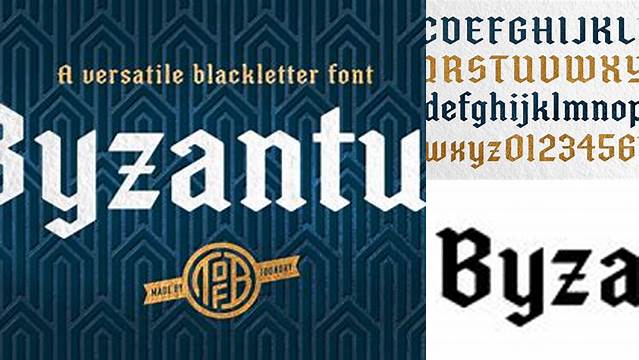
Byzantus Font has captured the hearts of designers and creatives worldwide with its unique blend of classic elegance and modern flair. This comprehensive guide will take you on a journey through everything you need to know about the Byzantus Font, from where to find it for free, understanding its licensing, to practical tips for incorporating it into your projects. Get ready, guys, because we're diving deep into the world of Byzantus Font!
The Allure of the Byzantus Font: Why It's a Designer's Darling
So, what's the big deal about the Byzantus Font? Well, it's more than just a collection of letters and symbols; it's a statement. This font, with its distinctive character, brings a touch of sophistication and style to any design. The font’s design, often characterized by its graceful curves and balanced proportions, makes it incredibly versatile. You can use it in a whole bunch of ways, from crafting elegant invitations and stylish branding to spicing up your website headers and social media posts. The charm of the Byzantus Font lies in its ability to be both classic and contemporary, which means it never really goes out of style. The font is like that timeless piece of clothing in your wardrobe – it always fits and always looks good, no matter the occasion. Its readability and visual appeal make it a top choice for those who want to make a memorable impression. Whether you're a seasoned designer or just starting out, the Byzantus Font is a valuable asset in your creative toolkit, helping you elevate your work and make it stand out. It's not just about the look; it's about the feeling it evokes. The right font can set the tone for your entire project, and the Byzantus Font often conveys a sense of luxury, creativity, and attention to detail. That's why it's a designer's darling. Using this font can help you create a strong brand image, capture your audience's attention, and leave a lasting impression. With its beautiful and easy-to-read design, your text will not only look great but also communicate effectively. Think about it: choosing a font is like choosing the perfect outfit. The Byzantus Font is the ultimate choice to make your designs pop.
Decoding the Byzantus Font's Unique Characteristics and Styles
Alright, let's get down to the nitty-gritty of what makes the Byzantus Font so special. First off, it's all about the details! The font is often characterized by its elegant serifs, which are those little strokes at the end of each letter, adding a touch of sophistication and refinement. The balance between thick and thin strokes provides both visual interest and excellent readability. Then there’s the variety. You'll find Byzantus Fonts in different weights and styles, from light and airy to bold and impactful. This gives you a lot of flexibility when it comes to designing various projects. The design also includes a set of variations, such as italic versions, to create a sense of movement and dynamism. These variations let you add a touch of personalization and express your creativity in a multitude of ways. This isn't just a font; it's a whole family of fonts. Each variation can cater to a specific design need. Whether you're aiming for a classic look or something more modern, the Byzantus Font has a style to suit your needs. The different weights enable you to emphasize certain text elements and make a lasting impression. Some of the most popular styles include regular, italic, bold, and condensed, each bringing a different personality to your design. The Byzantus Font excels in conveying elegance and clarity. Whether you need to make your headlines pop, or you just want to give your body text a professional touch, this font can make all the difference.
Finding the Perfect Byzantus Font for Your Design Project
Choosing the right Byzantus Font for your project can be an art. First, you've got to consider the mood you're trying to evoke. Are you aiming for something sophisticated, playful, or perhaps a little bit edgy? The style of the Byzantus Font you choose should match this. Next, think about readability. Make sure the font is easy to read, particularly if you're using it for large blocks of text. The goal is to convey your message clearly, and a font that's difficult to read can work against that. Also, think about the context: where will the font be used? Is it for a website, print material, or social media? Consider what will make the font stand out. You have to make sure that the font works well with the overall design. It shouldn't clash with the colors, images, or other design elements. A font can complement or contrast these elements for the effect you need. If you're working on a logo or headline, you might want to use a bolder version to create more impact. For body text, a lighter weight might be more appropriate. Don't hesitate to experiment with different styles and weights. Try out several variations of the Byzantus Font until you find the perfect fit. Keep in mind that the perfect font is the one that best represents your message, style, and target audience. Taking the time to consider these points will help you make the right choice.